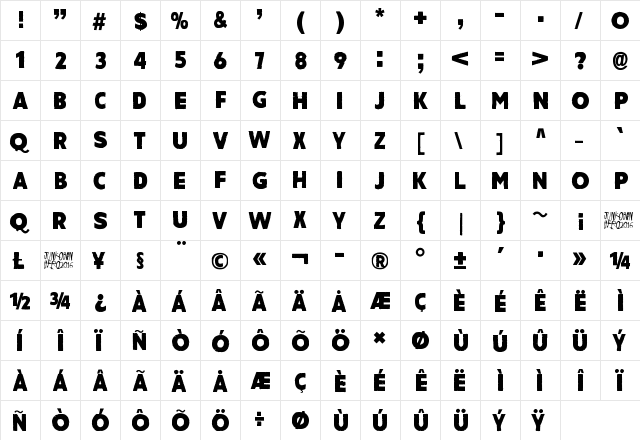
Amateur Naked Regular
Design Context for Amateur Naked Typeface
Amateur Naked is a composed and adaptable typeface that performs quietly and consistently across a wide range of design contexts.
Pro Tip: Use Amateur Naked in both headline and body roles to test its range before committing to a single application.